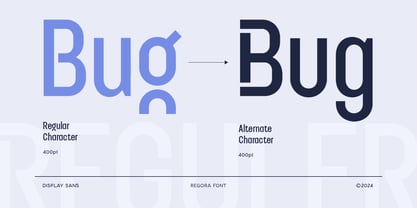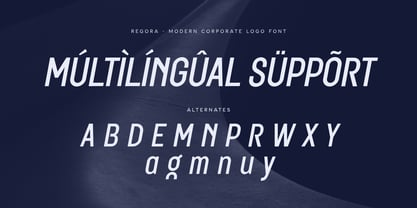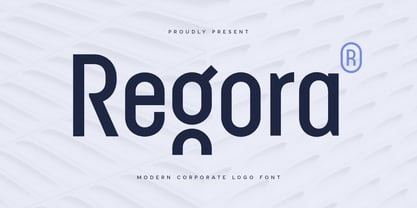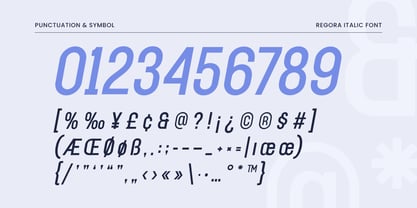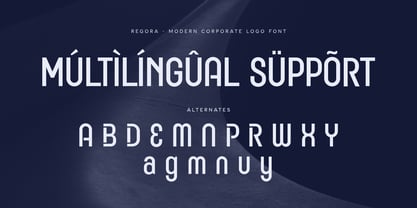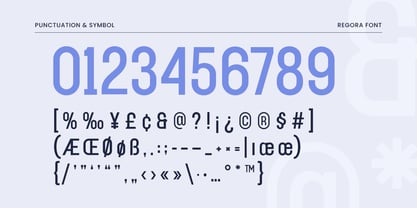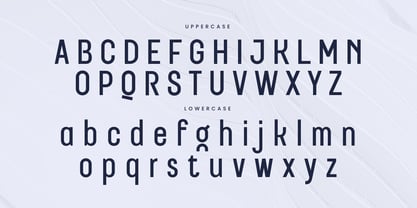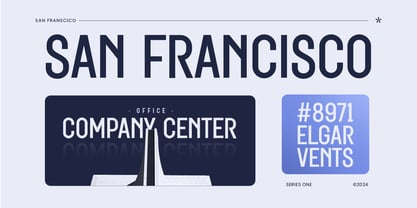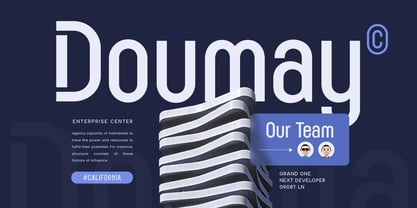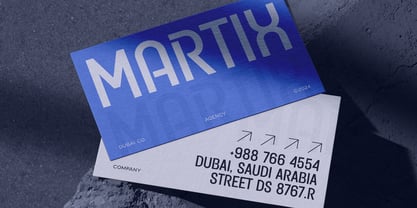
Regora
Die Schriftfamilie Regora wurde von Zamroni Hamzah entworfen und von Sensatype Studio veröffentlicht. Regora enthält 2 Stile und Familienpaketoptionen.
Introducing Regora, a font designed to bring a modern and professional touch to your corporate branding. Combining sleek aesthetics with a minimalist approach, Regora is perfect for creating logos and branding materials that exude sophistication and professionalism.
The Story Behind Regora:
Regora was conceived to meet the growing demand for a font that embodies the essence of modern corporate identity. Inspired by the clean lines and elegant simplicity of contemporary design, each character in Regora is crafted to ensure clarity and impact. The font's minimalist style makes it versatile and suitable for a wide range of corporate applications, from business cards to company websites.
Regora Font Features:
• Modern Design: Sleek and minimalist, ideal for corporate and business use.
• Professional Aesthetics: Clean lines and elegant curves that convey sophistication.
• Versatile Usage: Perfect for logos, business cards, corporate presentations, and office materials.
• High Legibility: Clear and easy to read, ensuring your message is communicated effectively.
• Elegant Simplicity: Combines modern style with a professional look.
Perfect For:
• Corporate Branding: Create sleek and professional logos for businesses and companies.
• Business Materials: Design elegant business cards, letterheads, and office stationery.
• Presentations: Develop polished and modern presentations for corporate meetings and pitches.
• Marketing Materials: Enhance brochures, flyers, and advertisements with a touch of elegance.
With Regora, your corporate designs will achieve a new level of professionalism and style. Whether you're working on branding, marketing materials, or business presentations, Regora provides the perfect blend of modern design and corporate sophistication. Elevate your brand with Regora and make a lasting impression in the business world.